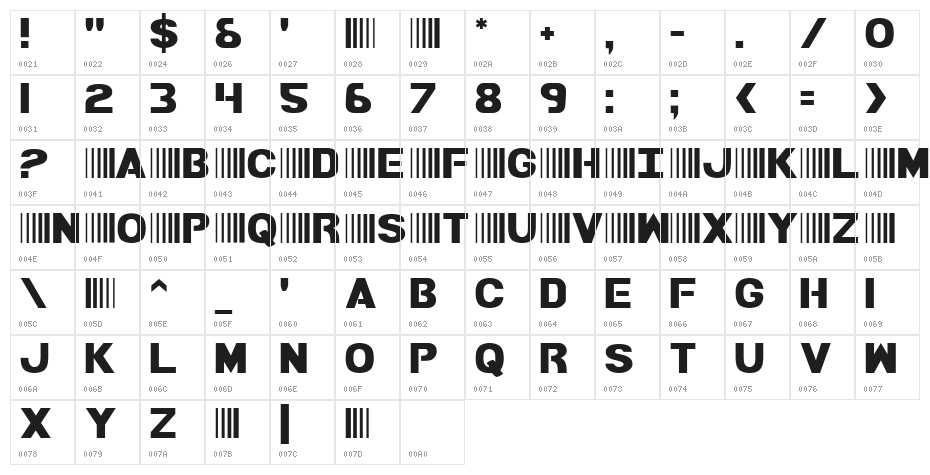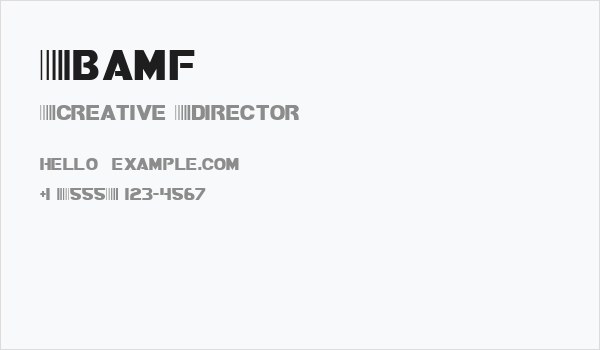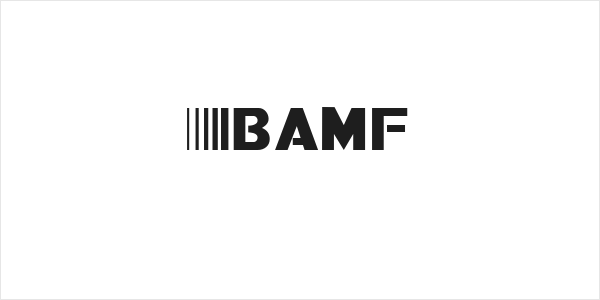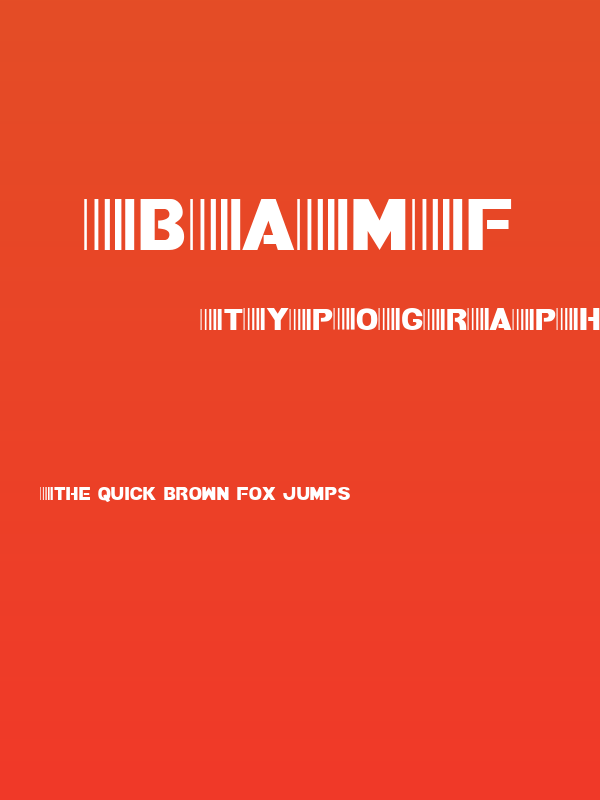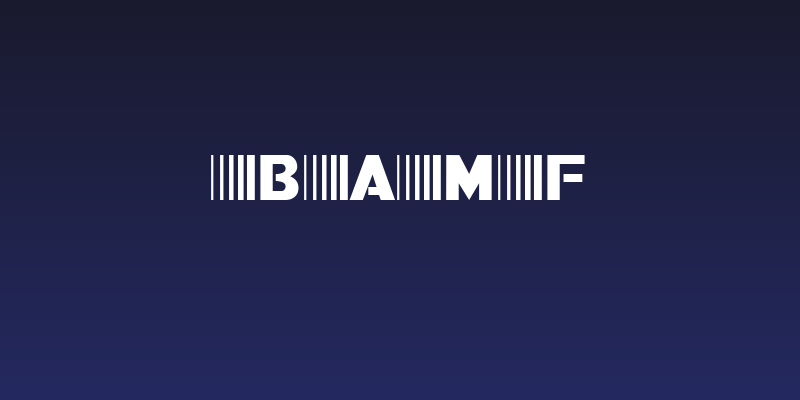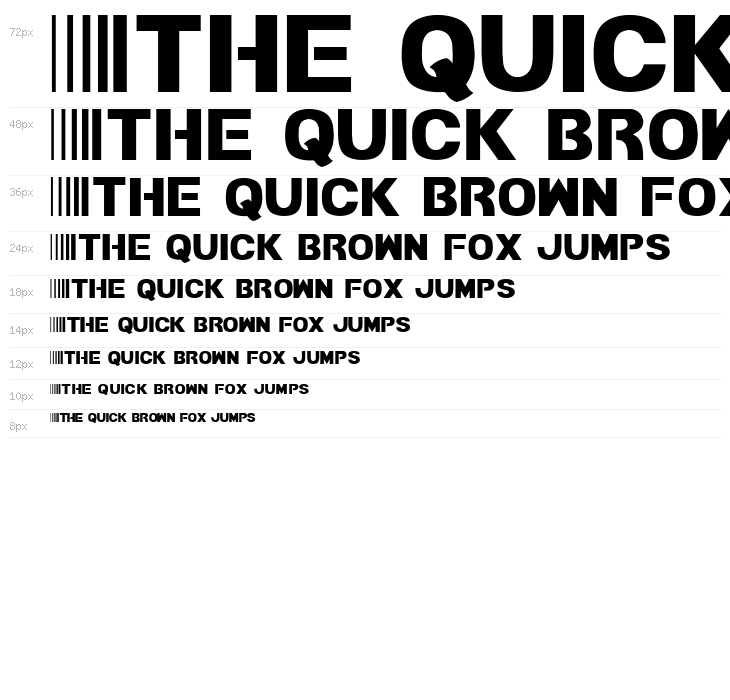
Bamf Font
Bamf Description
This font features a bold and impactful design, characterized by thick, uniform strokes that convey strength and modernity. The uppercase letters are particularly striking, with a geometric, sans-serif style that emphasizes clarity and readability. The numbers and special characters maintain this bold aesthetic, ensuring consistency across all elements. The font's design is suitable for making a strong visual statement, with its clean lines and lack of ornamentation highlighting its modern appeal.
Proposed ProjectsIdeal for branding, headlines, posters, and any design project requiring a strong, modern typeface.